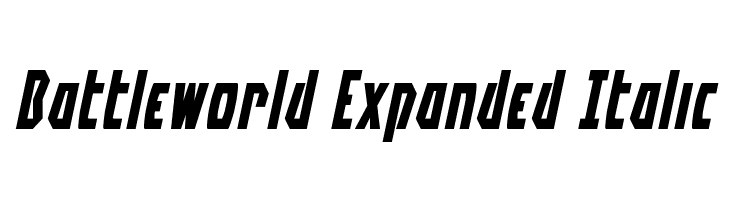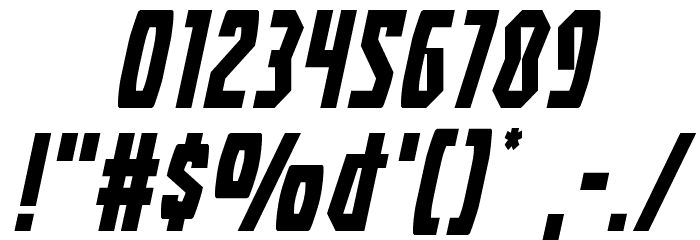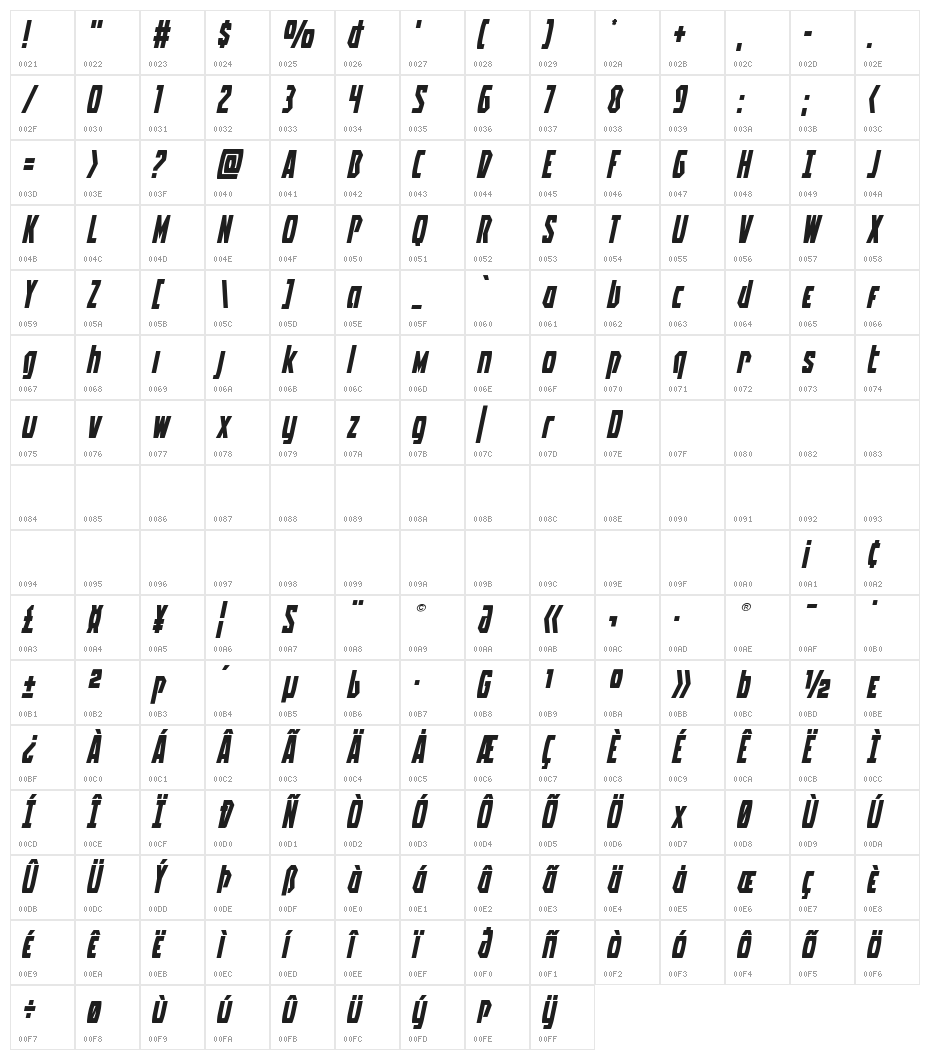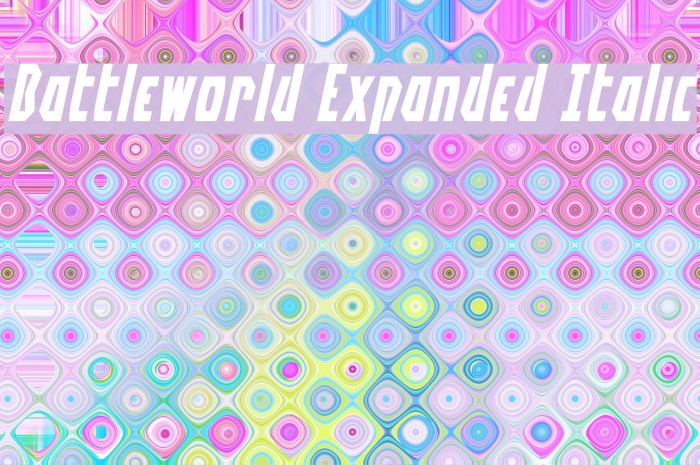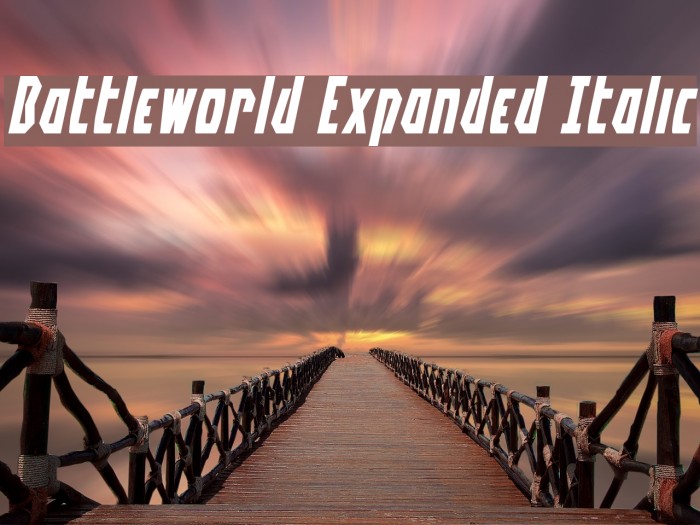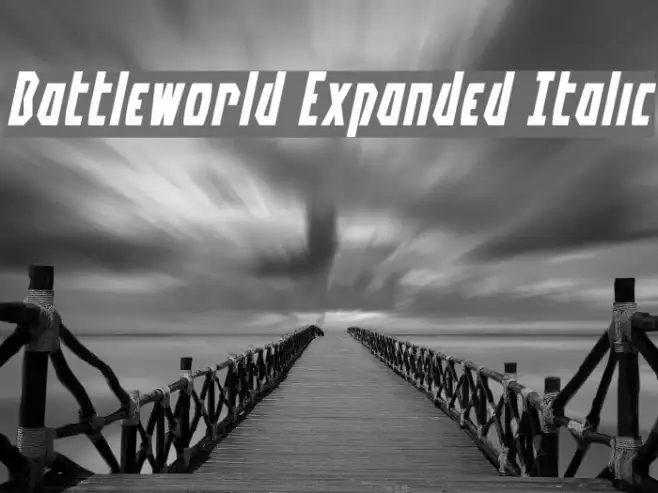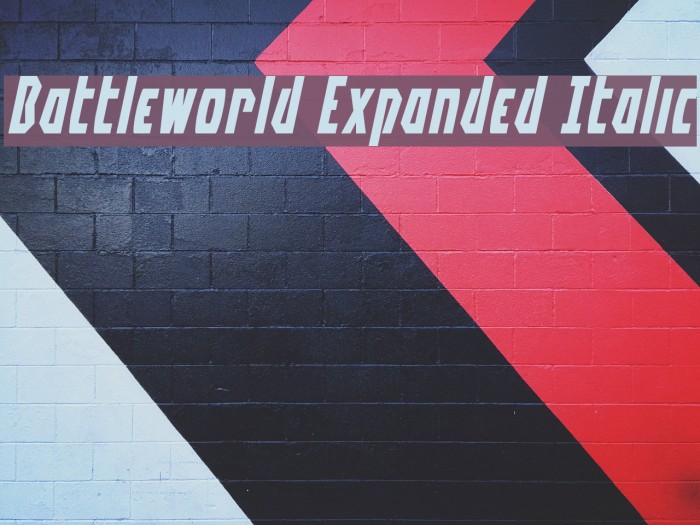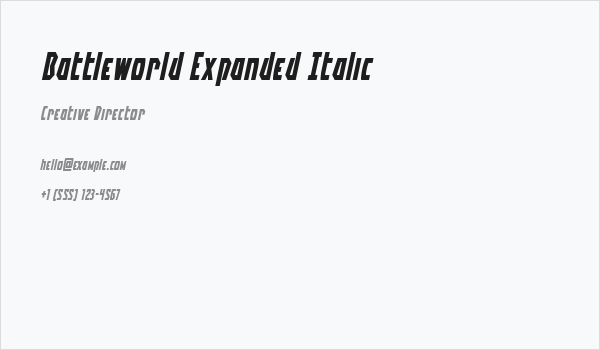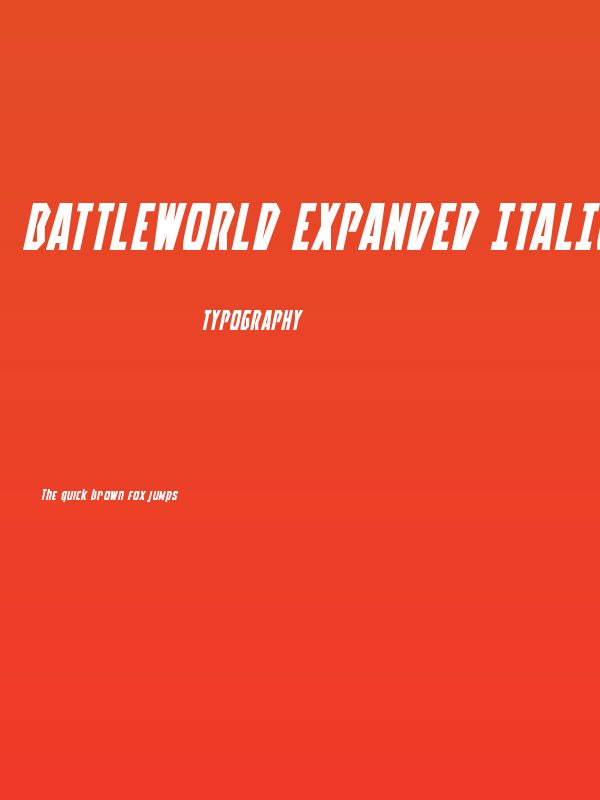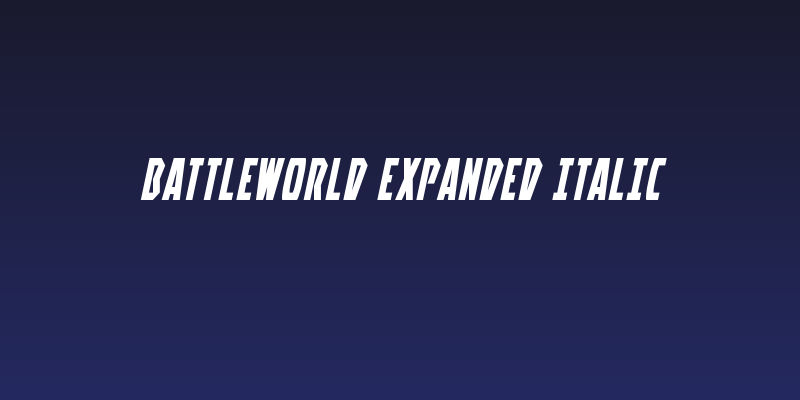
Battleworld Expanded Italic Font
Battleworld Expanded Italic Description
This font features a bold and dynamic style with an expanded and italicized form. The characters are sharply angled, giving a sense of movement and energy. The uppercase and lowercase letters maintain a consistent slant, enhancing the italic effect. The numbers and special characters follow the same stylistic approach, ensuring uniformity across all glyphs. The font's design is striking and modern, making it suitable for attention-grabbing headlines or titles. Its expanded width allows for a strong visual impact, while the bold weight ensures readability even at smaller sizes.
| Proposed Projects | Ideal for sports branding, action movie posters, video game titles, and dynamic advertising campaigns. |